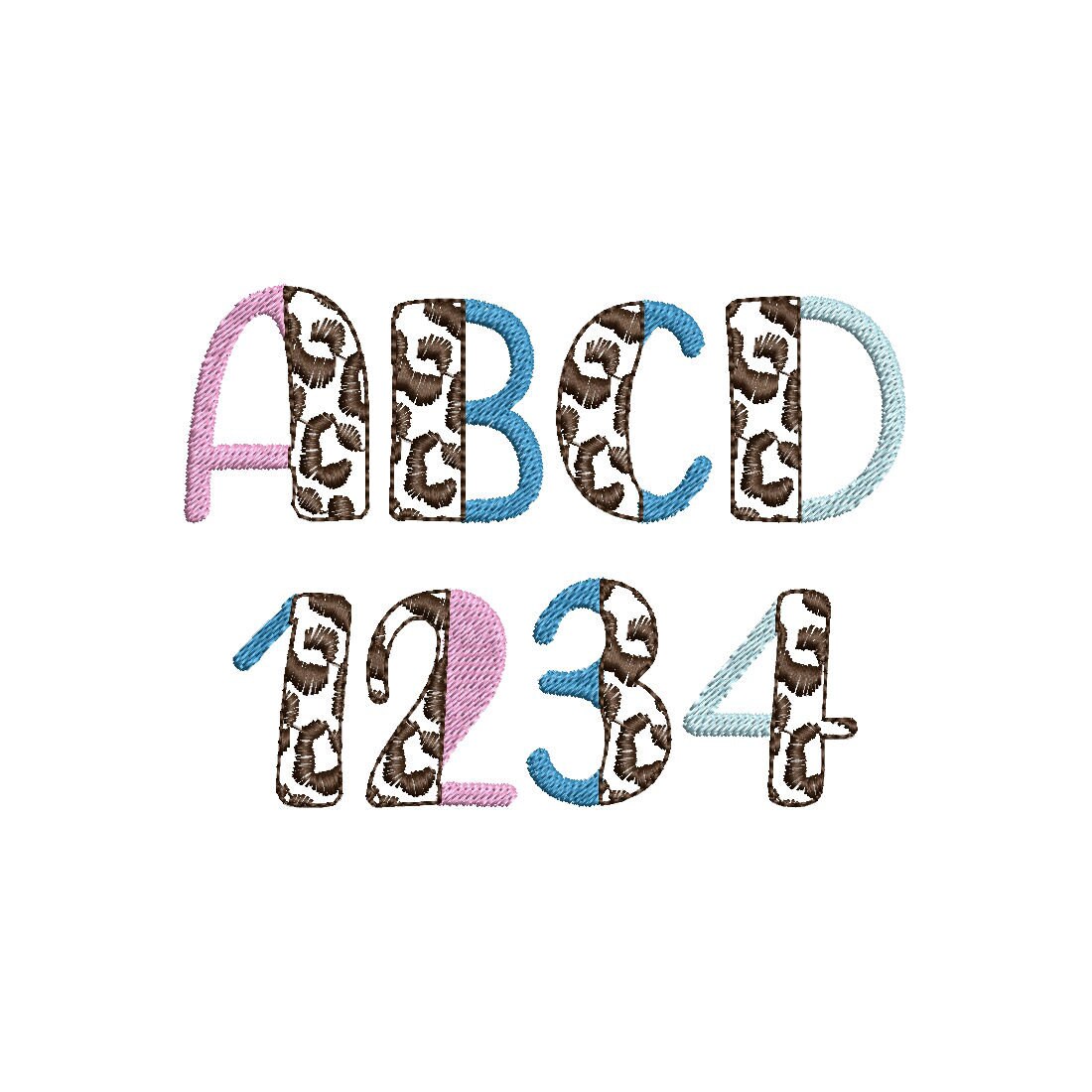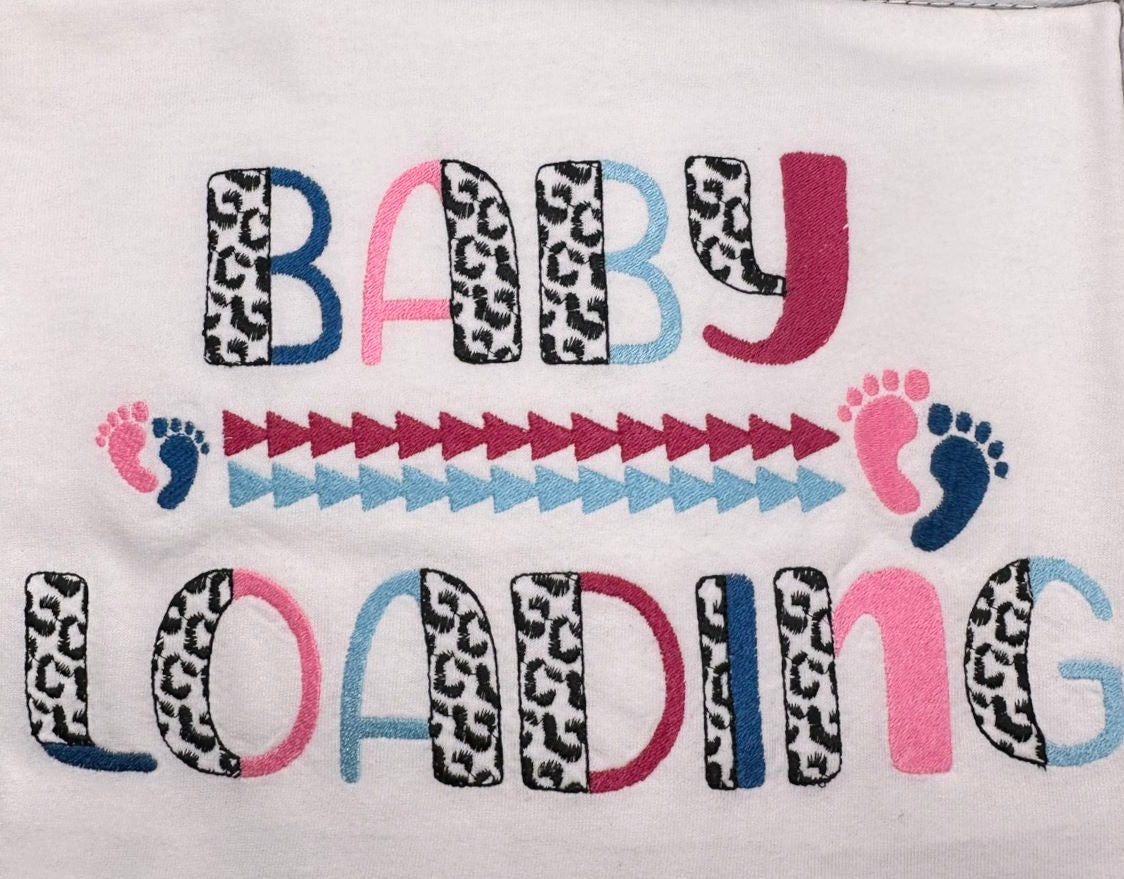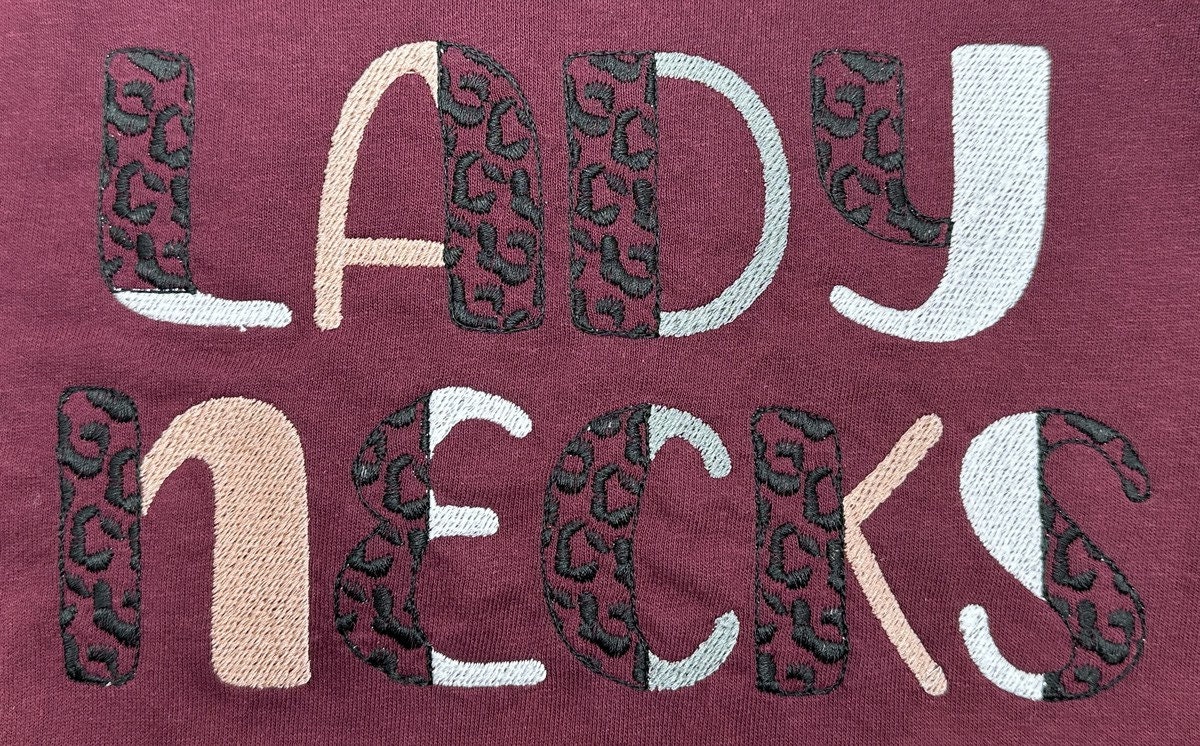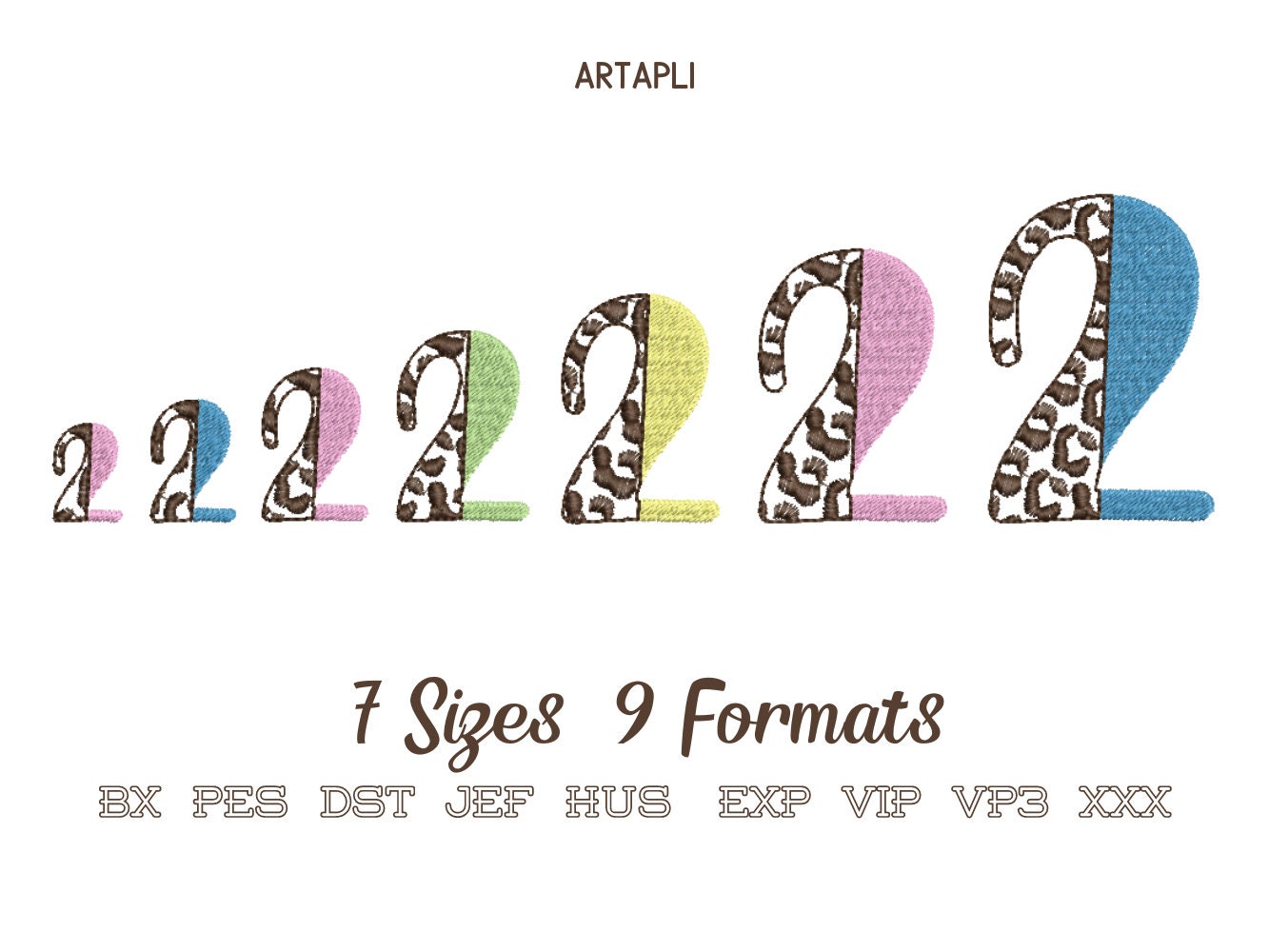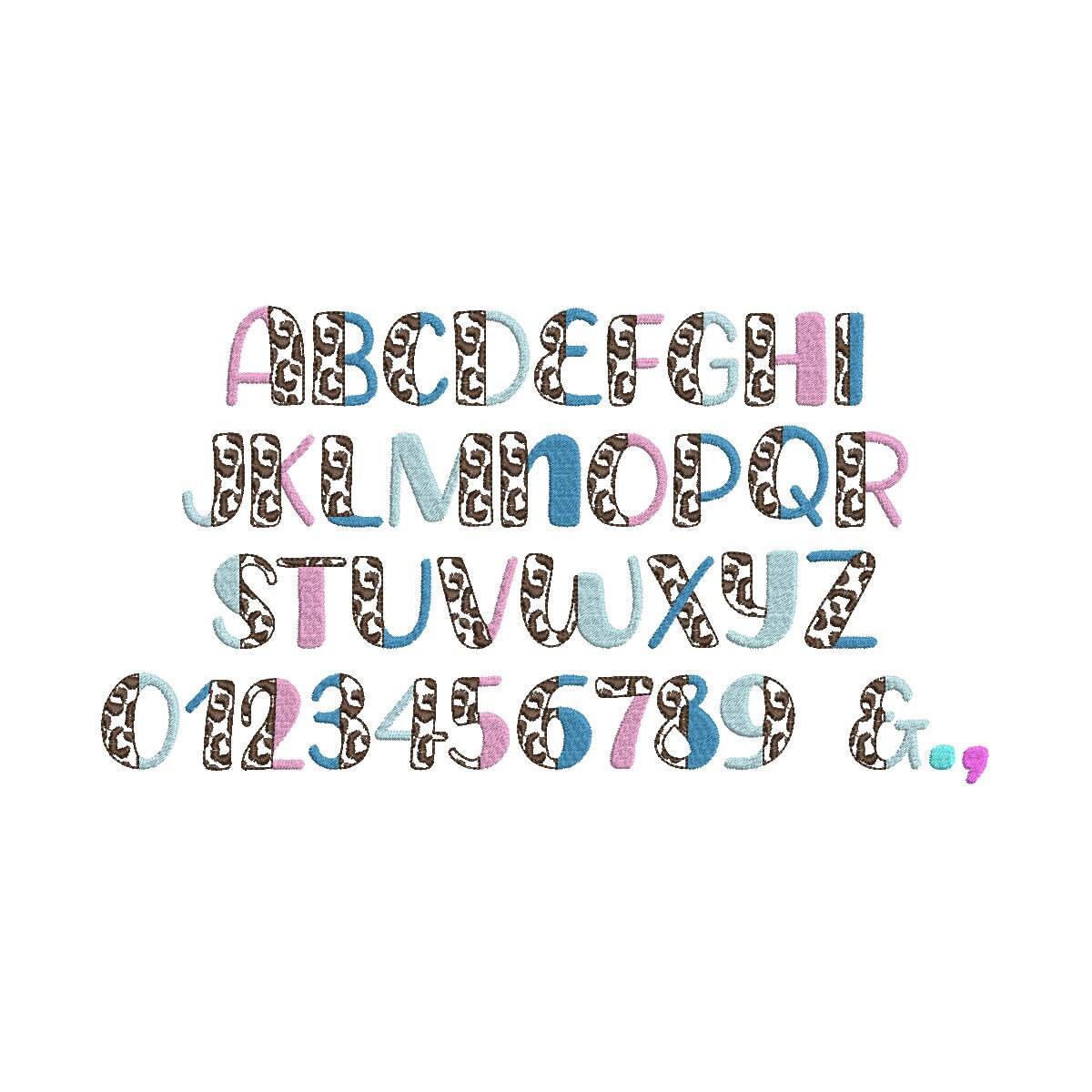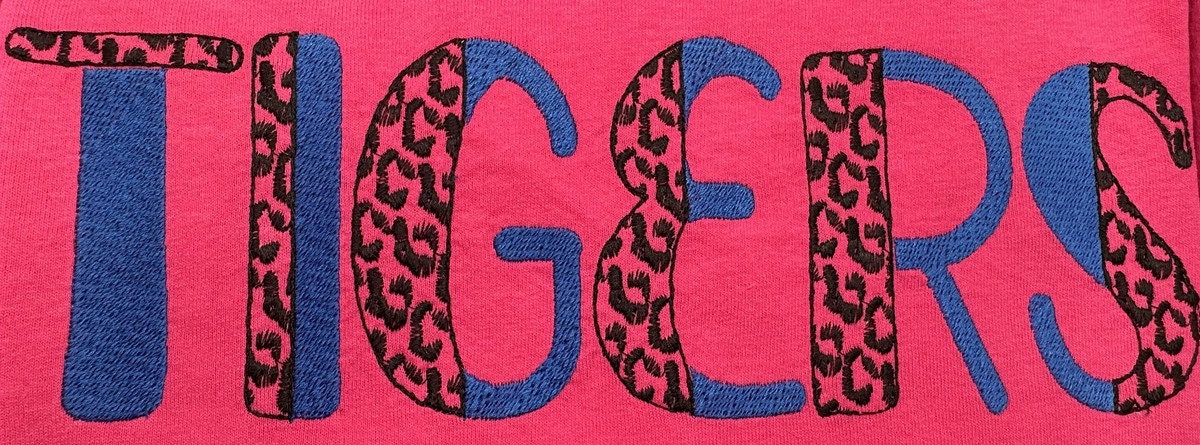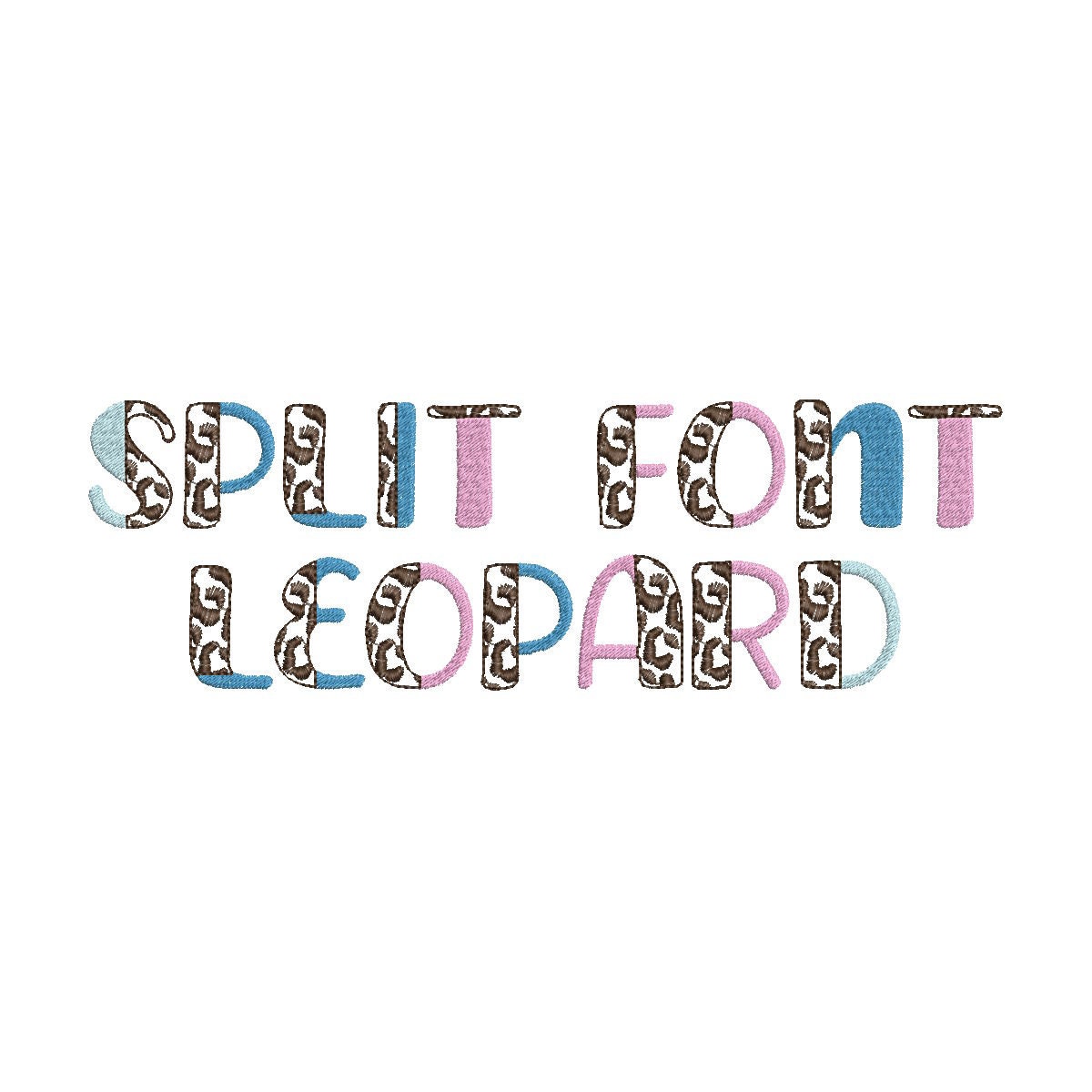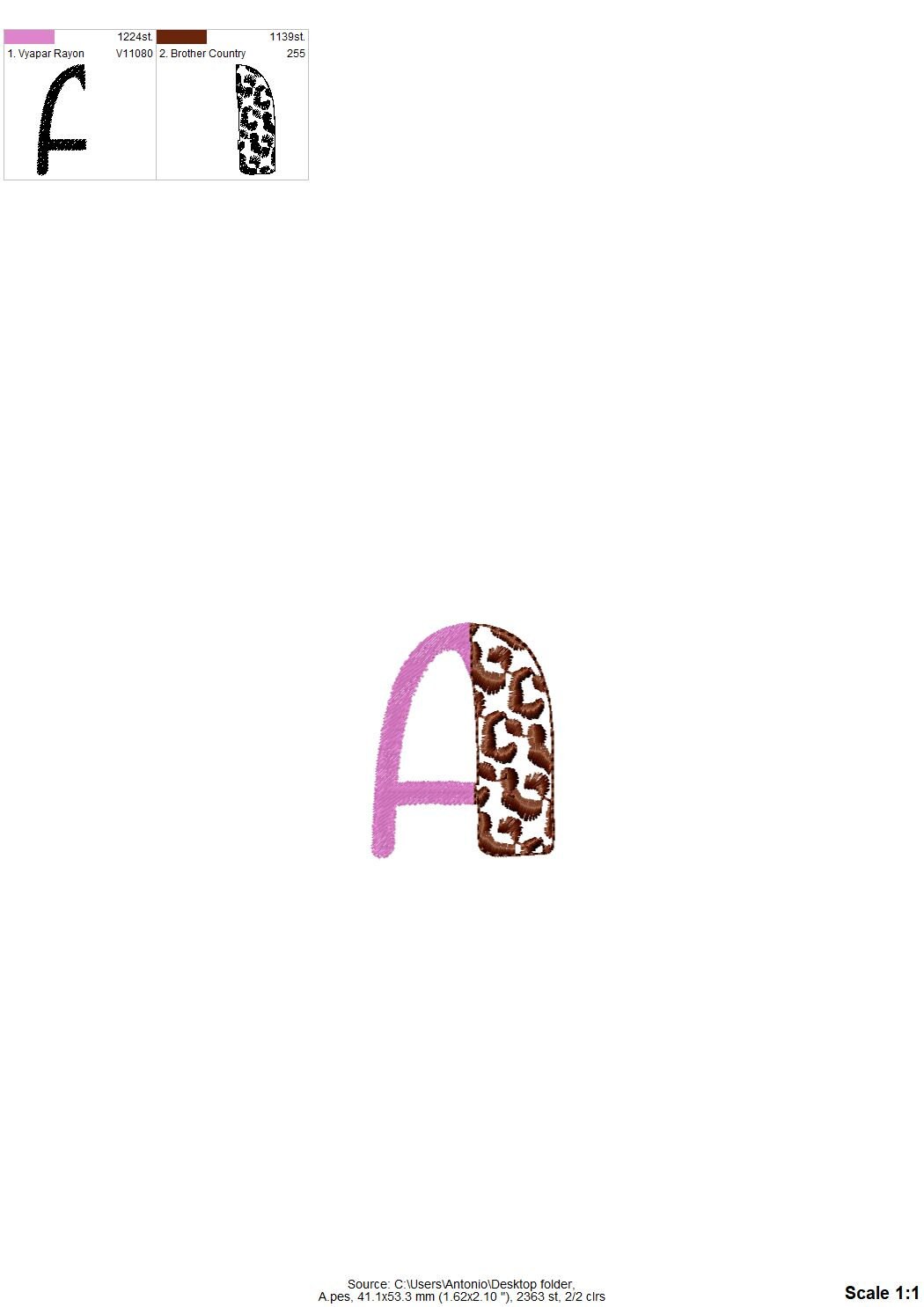
Split Font Leopard spots and fill stitch Duo font 2 colors alphabet uppercase and numbers machine embroidery designs 1 up to 3 inches, BX
Split Font Leopard spots and fill stitch Duo font 2 colors alphabet uppercase and numbers machine embroidery designs 1 up to 3 inches, BX included
The font has fill stitch on one side, and leopard spots on the other side.
The part of the leopard spots is transparent and the background fabric looks through. Stunning effect!